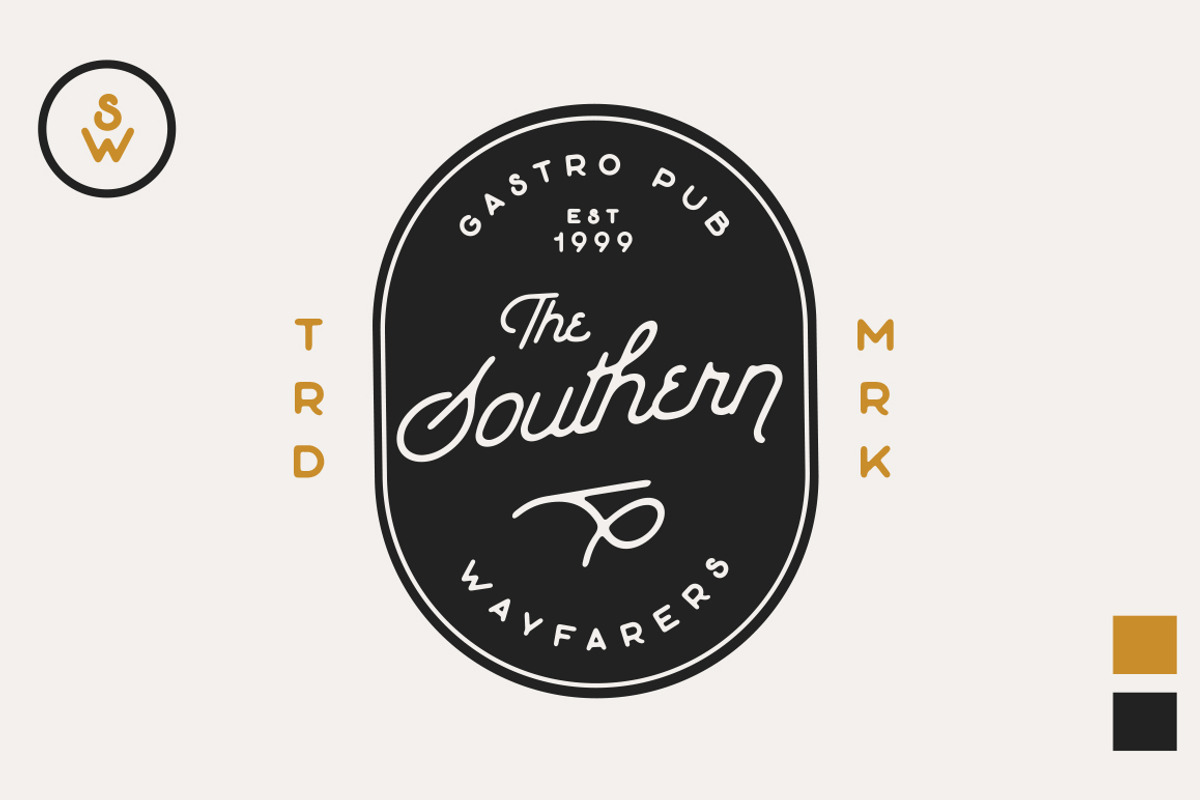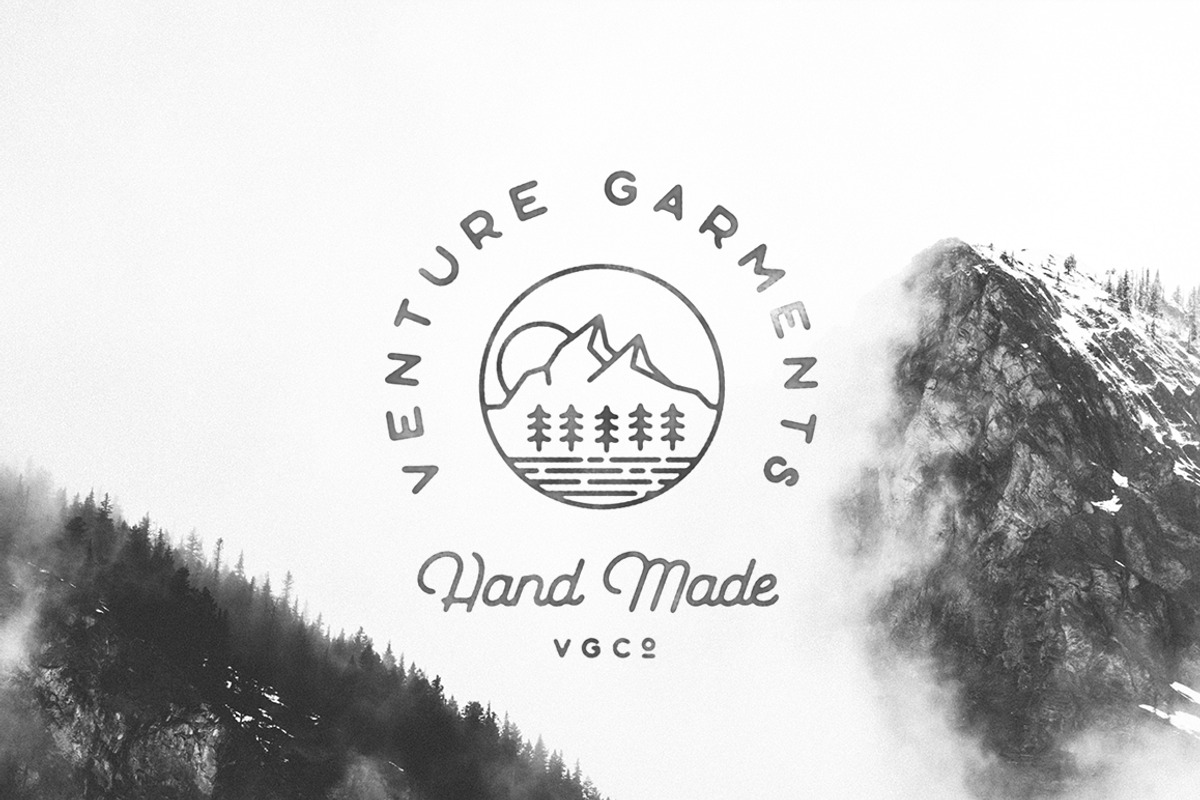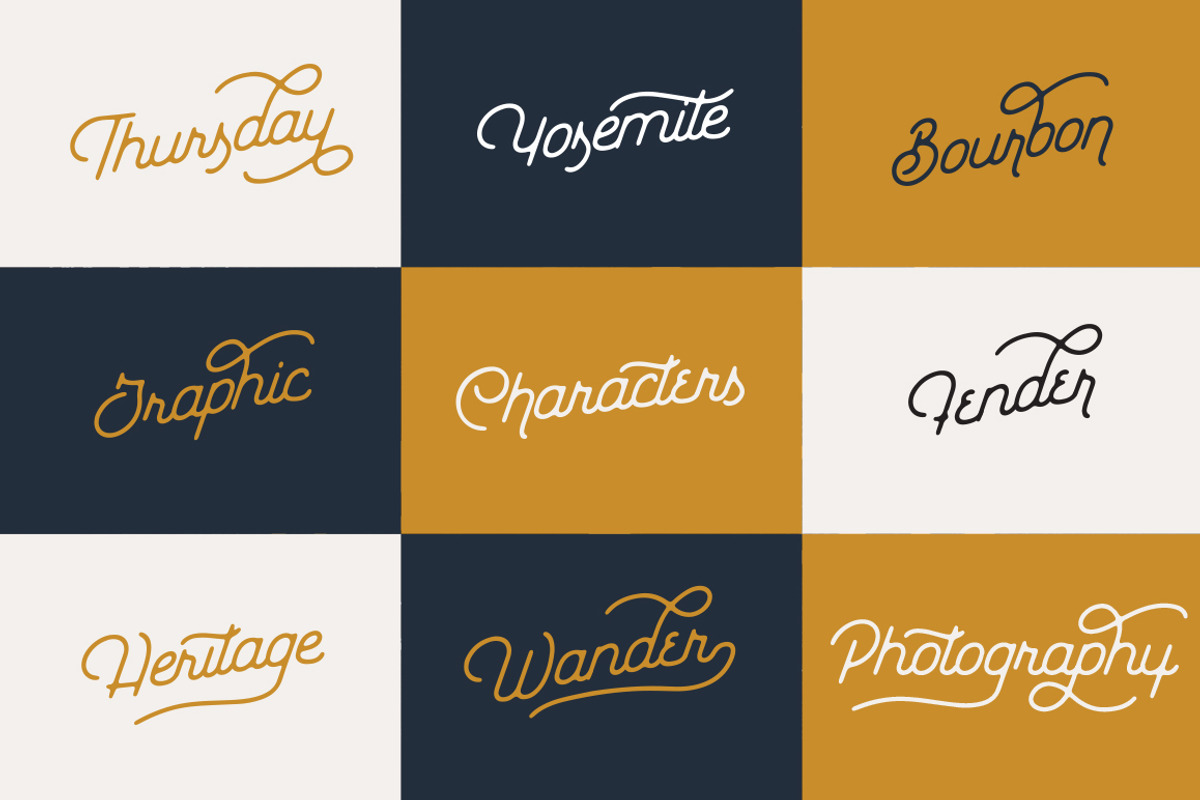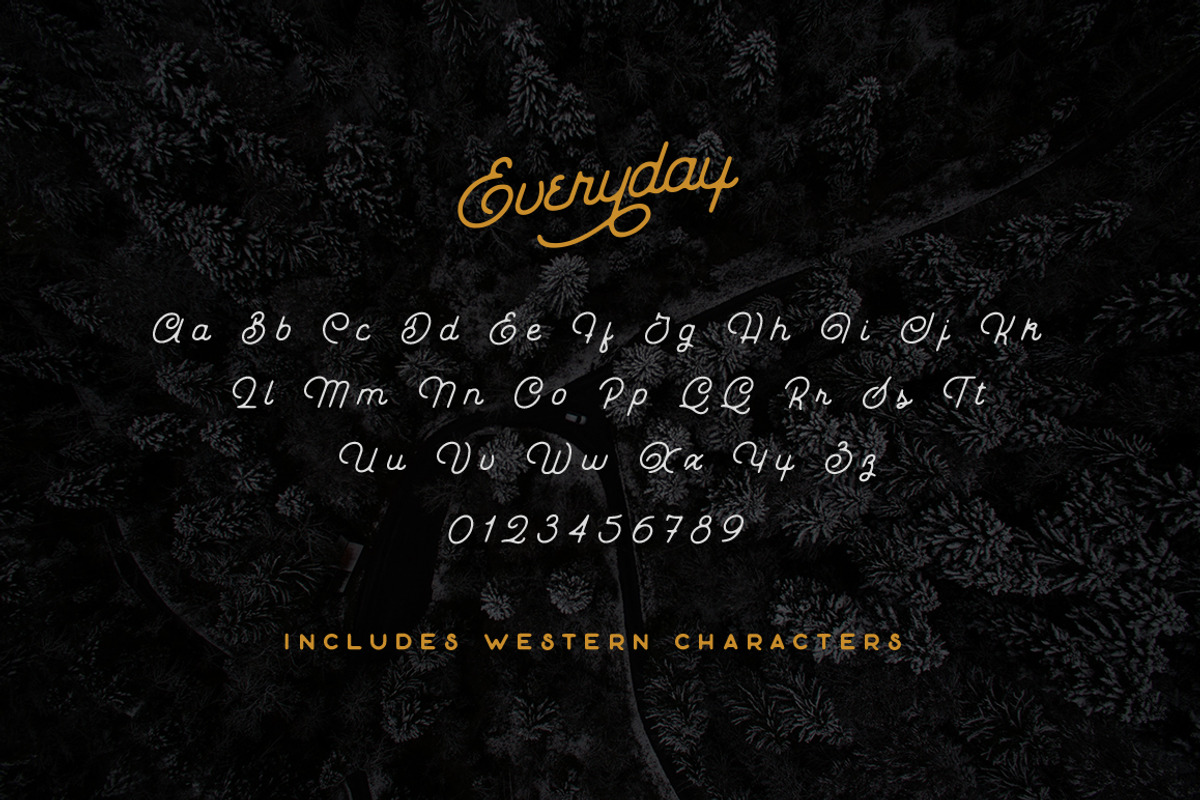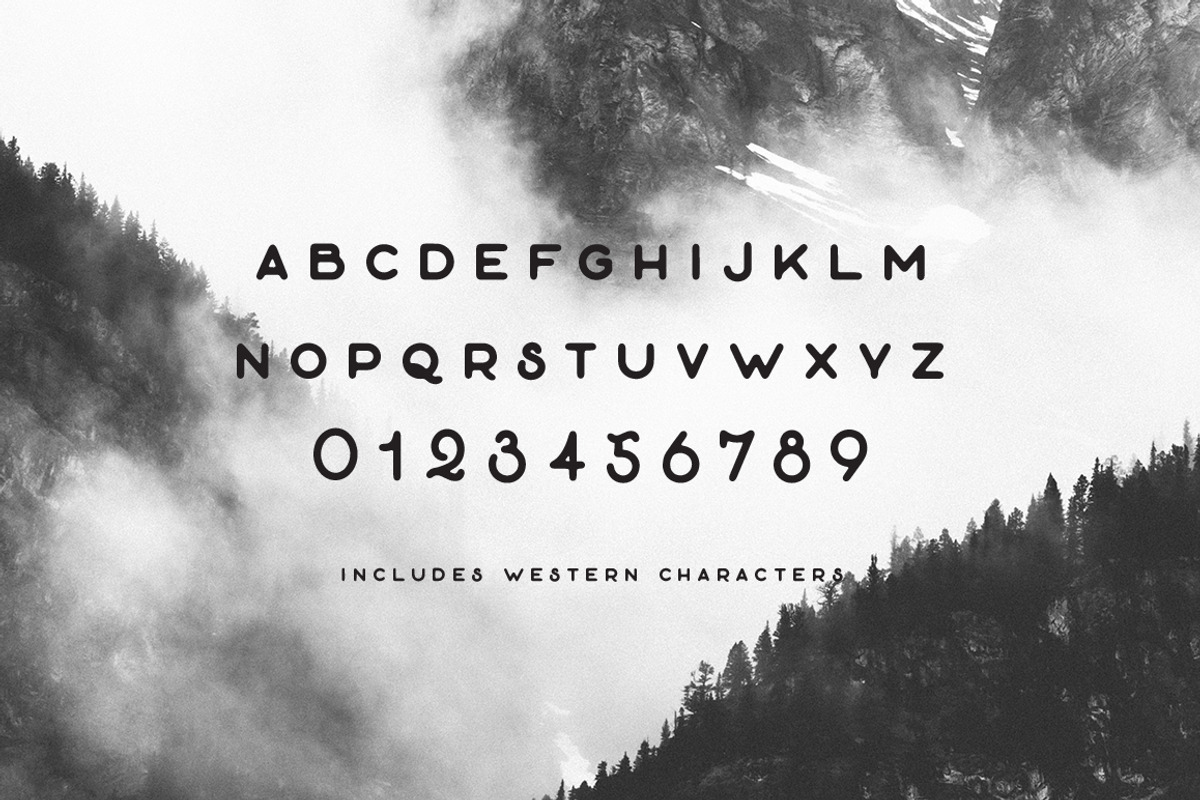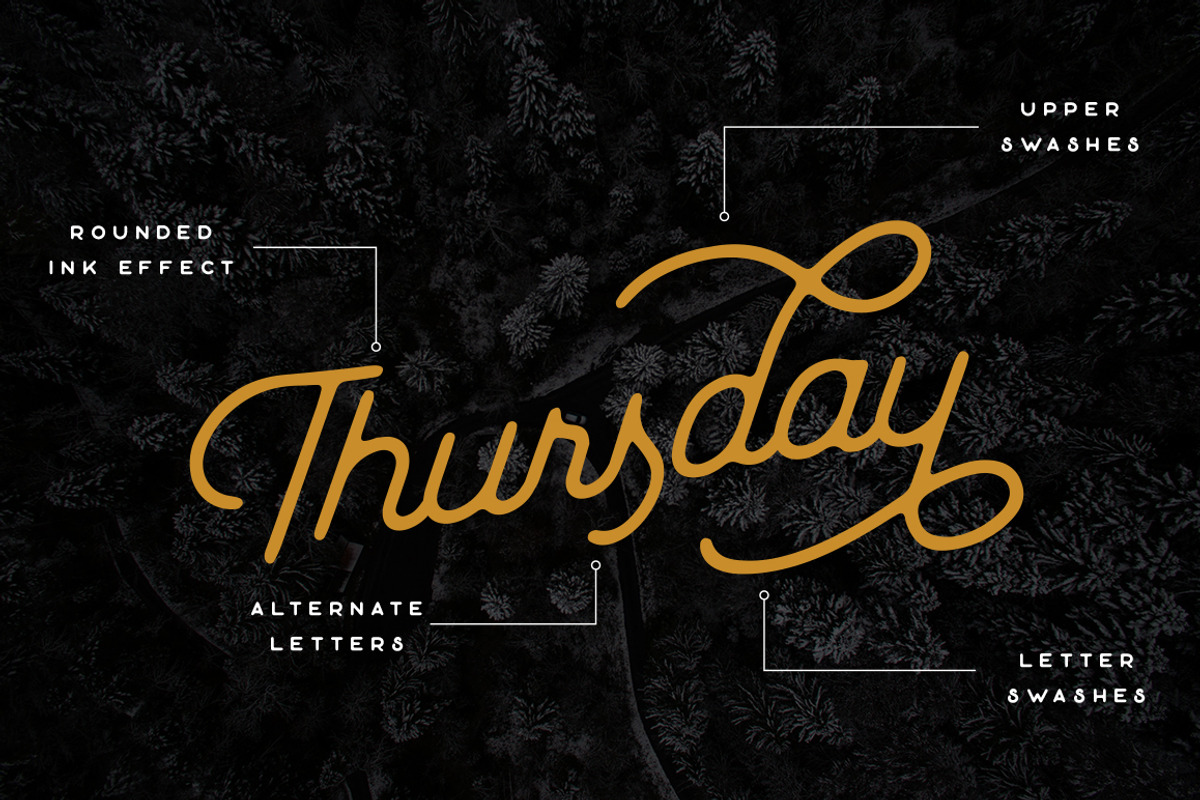
The Everyday Font Duo
The Everyday Font Duo by Hustle Supply Co. is a font selected for branding, posters, packaging, typography.
- The Everyday Font Duo This font duo comes with a mono line script typeface as well as a sans serif typeface.
- Everyday Script comes with many different stylistic alternate swashy characters to give your brand, advertisement, logo, etc a unique look t
- Everyday Sans comes with western characters and a great pairing typeface with the script!
Why The Everyday Font Duo is worth a look
The Everyday Font Duo by Hustle Supply Co. fits naturally into Branding, posters, packaging, typography.